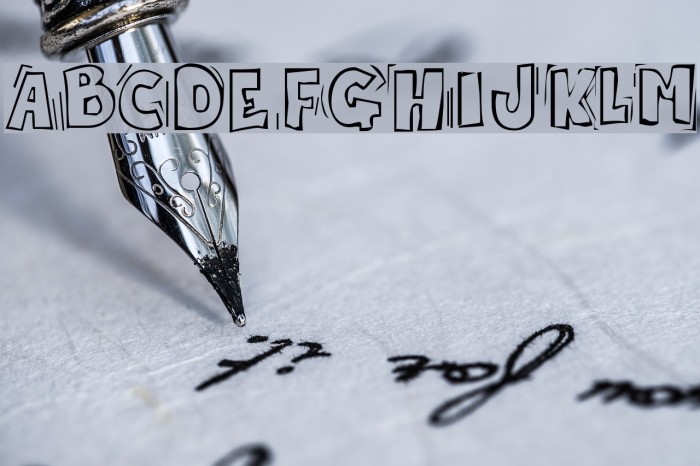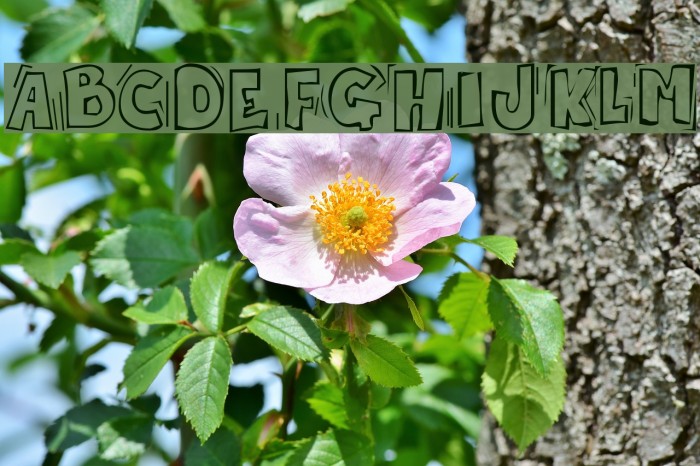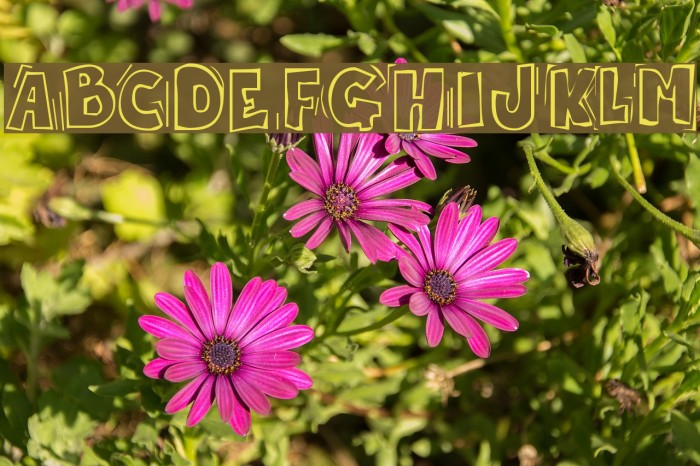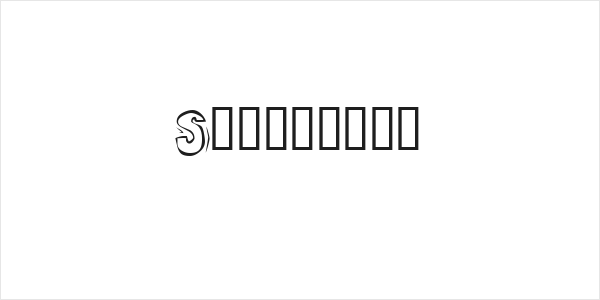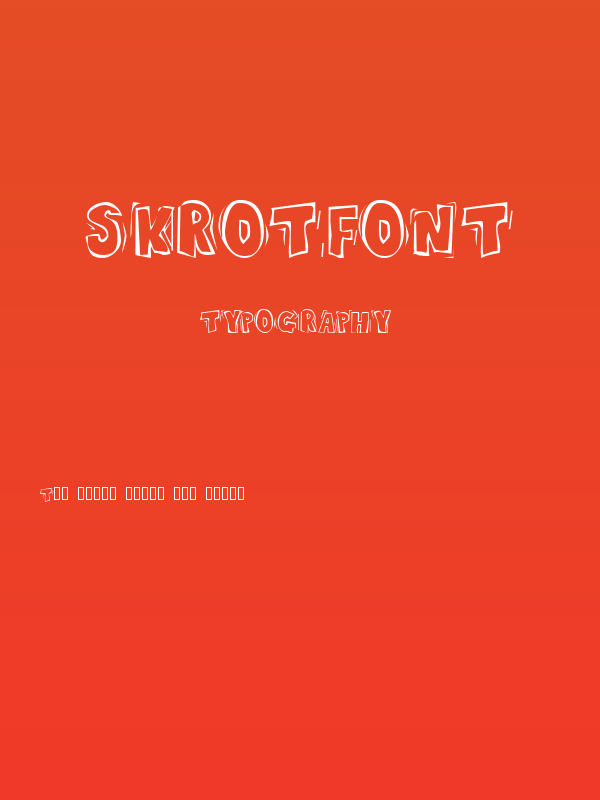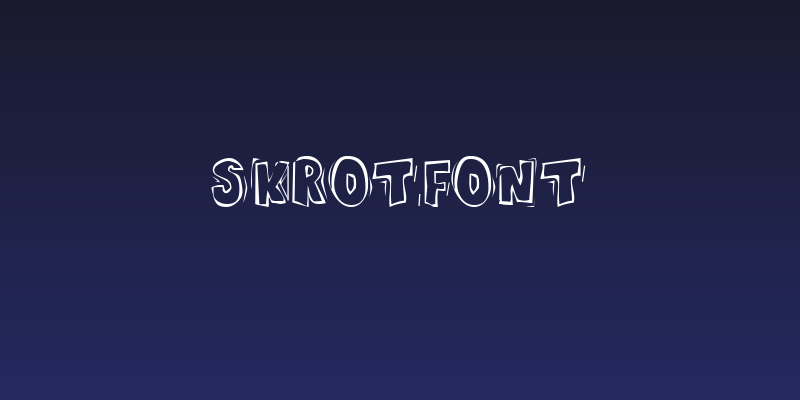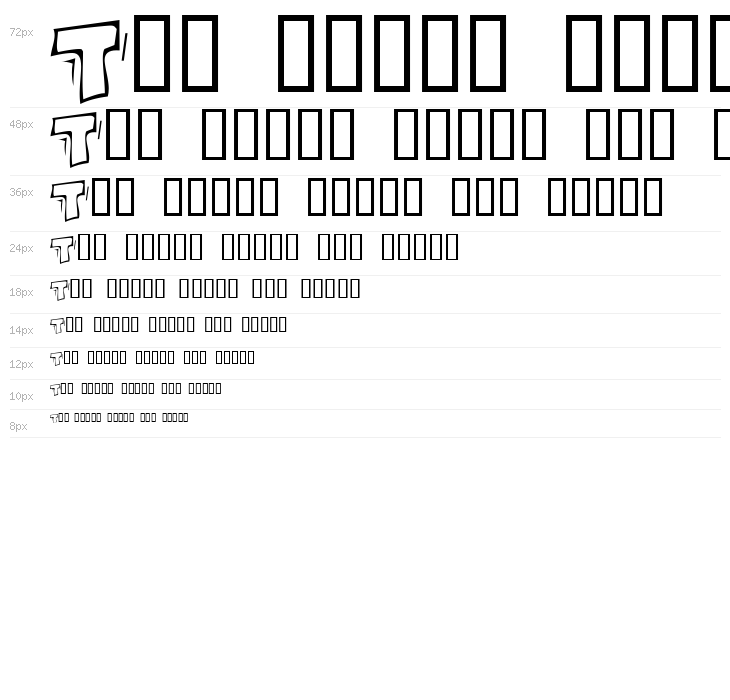
Skrotfont Font
Skrotfont Description
This font features a bold, playful style with a hand-drawn aesthetic. The uppercase letters are characterized by thick, uneven strokes and a slightly irregular baseline, giving them a dynamic and energetic appearance. The letters have a three-dimensional effect with shadowing, adding depth and a sense of movement. This font is highly decorative and stands out with its unique, artistic flair. It is ideal for projects that require a fun and informal touch, such as children's book covers, playful posters, or creative branding materials.
| Proposed Projects | Children's books, playful posters, creative branding, informal invitations. |